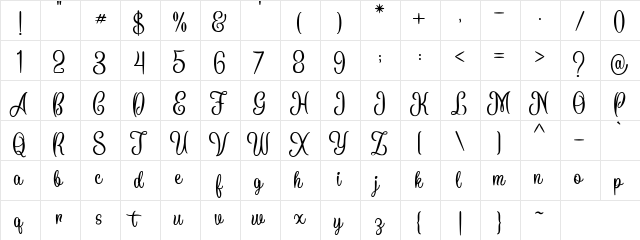
Battallion Script Demo Regular
| Foundry | Subqi Std |
Design Context for Battallion Script Demo Typeface
Battallion Script Demo brings a calligraphic fluidity to the page — its connecting strokes and expressive curves give it an unmistakably human quality.
Font Pairing: Combine Battallion Script Demo with a simple geometric sans for maximum contrast — the tension between flowing curves and clean structure is a classic typographic pairing.
Pro Tip: Use Battallion Script Demo for short runs of text — names, titles, or taglines. Extended body copy in script faces tires the eye quickly.